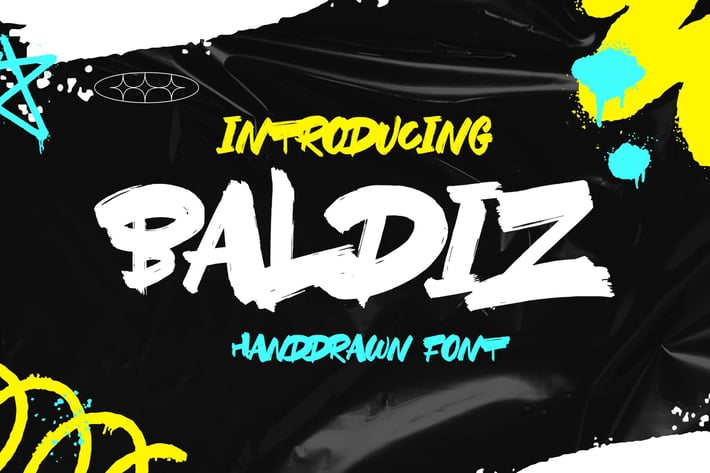
Baldiz Handdrawn Font
brush font bursting with energy. With extra attention to quick strokes
Homed Handdrawn is very best choice fonts for : ,quotes, Posters, Logos, Print Ads, Digital Ads, Promotion Product, video bumper, etcsad
brush font bursting with energy. With extra attention to quick strokes
Homed Handdrawn is very best choice fonts for : ,quotes, Posters, Logos, Print Ads, Digital Ads, Promotion Product, video bumper, etcsad